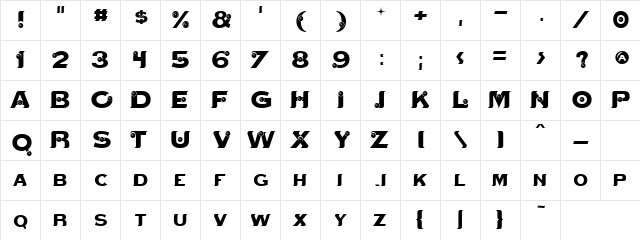
Fair And Lovely Regular
Design Context for Fair And Lovely Typeface
Fair And Lovely is a composed and adaptable typeface that performs quietly and consistently across a wide range of design contexts.